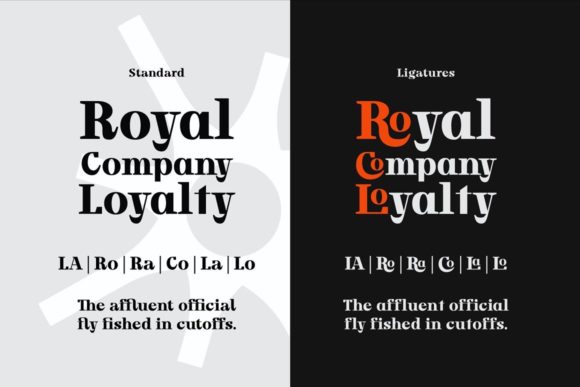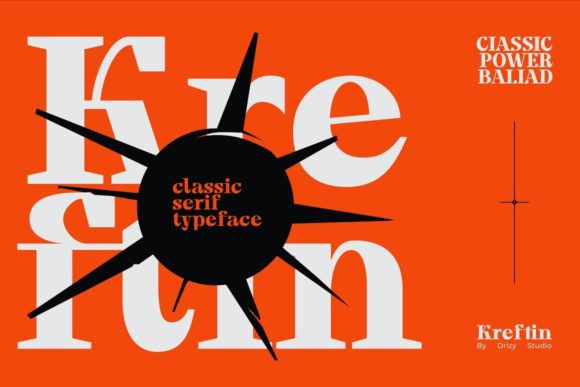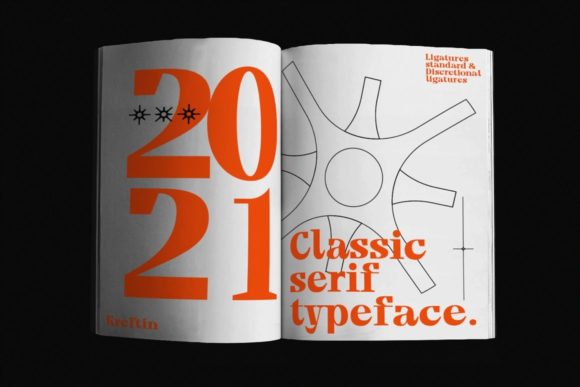
Introduction to Kreftin Font
Have you ever found yourself in the midst of a creative project, searching for that perfect font to elevate your design and take it to the next level? It’s a feeling we’ve all experienced, and it’s what makes discovering a new font so exciting. For designers and crafters alike, finding a high-quality font that adds a touch of sophistication to our work can be a game-changer.
Enter Kreftin Font, a bold, thick lettered serif font that’s sure to make a statement. Its trendy aesthetic and versatility make it the perfect design resource for a wide range of creative endeavors, from cards and branding to labels and more. Whether you’re working on a free download or a paid project, Kreftin Font is a valuable addition to your design arsenal.
Key Features of Kreftin Font
- Unique, hand-drawn design ideal for creative projects and artistic expressions.
- High-quality font with transparent background, perfect for overlaying on images or videos.
- Designed with a minimalist aesthetic, allowing for flexibility in various design applications.
- Perfect for use in digital design, print media, and web design projects, adding a touch of elegance and sophistication.
Honest Review: Kreftin Font
As a designer, I’m always on the lookout for high-quality design resources to elevate my creative projects. The Kreftin Font has been a recent addition to my toolkit, and I’m excited to share my thoughts on it.
- ✨ Unique design aesthetic that sets it apart from other fonts
- ✨ High-quality vector graphics that print well in various sizes
- ✨ Transparent background, making it easy to use with different design elements
- ⚠️ Limited character set, which may not be suitable for complex text-based designs
- ⚠️ Not as versatile as some other fonts, which may limit its use in certain creative projects
Overall, I’m impressed with the Kreftin Font and its potential to add a unique touch to my designs. While it may not be the most versatile font, its high-quality design and transparent background make it a valuable resource for designers working on creative projects.
Tips for Getting the Most Out of Kreftin Font
To get the most out of Kreftin Font, experiment with different font sizes, colors, and styles to find the perfect combination for your creative project. You can also use Kreftin Font in conjunction with other design elements to create a cohesive and visually appealing design.
Kreftin Font is ideal for use in a variety of creative projects, including branding, marketing materials, and digital media. Its high-quality design and transparent background feature make it an excellent choice for designers and non-designers alike.